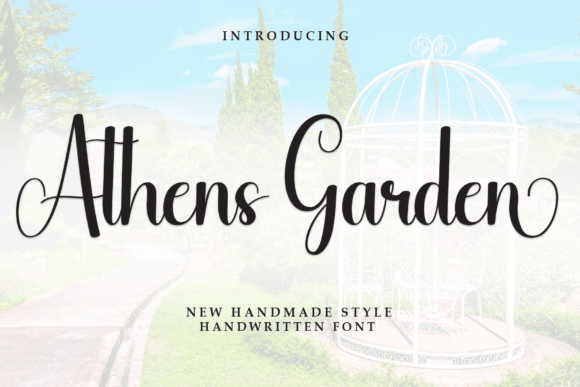
Dive into the enchanting realm of Athens Garden Font, a captivating script font brimming with sweetness and charm. Experience the magic of handwritten artistry, where each letter dances across the page with playful elegance.
Athens Garden Font is a delightful creation by Strongkeng Old, a master of typographic artistry. This font embodies the essence of delicate penmanship, effortlessly capturing the warmth and charm of handwritten notes. Its graceful strokes and whimsical swirls lend an air of playfulness and delight, making it perfect for adding a personal touch to your creative projects.
Unleash your imagination and let the Athens Garden Font cast its spell on your designs. Whether you're crafting heartfelt wedding invitations, designing eye-catching cards, or embarking on any creative endeavor that calls for a touch of loveliness, this font will effortlessly elevate your work.
Picture the joy of your loved ones as they receive a wedding invitation adorned with the Athens Garden Font, the graceful letters dancing across the page like a symphony of love and happiness. Envision the smiles on their faces as they read your heartfelt words, surrounded by the enchanting aura of this font.
With its versatility and captivating charm, Athens Garden Font is the perfect choice for a wide range of creative pursuits. Let your imagination soar and allow this font to transform your designs into works of art that captivate and inspire.
Step into the world of Athens Garden Font and discover the magic of handwritten artistry. Let your creativity blossom as you explore the endless possibilities this font offers. Elevate your designs to new heights, adding a touch of warmth, playfulness, and undeniable charm.